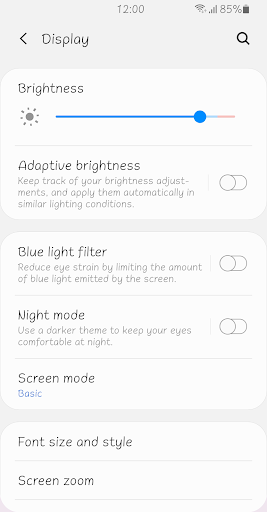
Fine Ordinary
It is a handwritten style font characterized by an even thickness.
Its natural, relaxed shapes and smooth stroke movements are cute and adorable.
Your day will never be boring again.
Fill your mind with fun imaginations.
Unexpected things will happen.
Your day will be full of excitement.